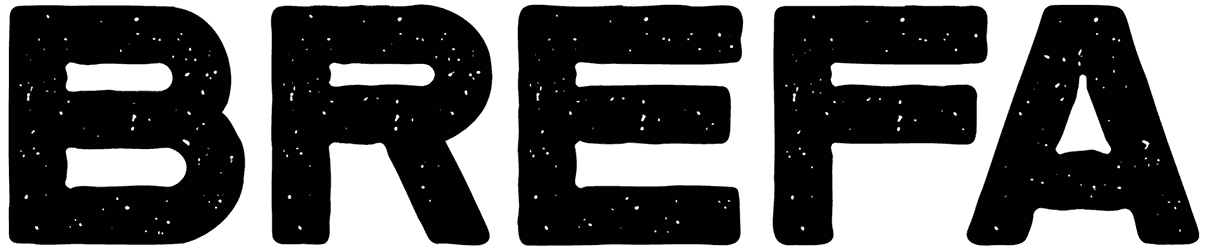
Brefa Font
Words that are simple and at the same time have a little pattern will be a clever choice for many designs. Brefa is an eroded adventure font with bold outward and rounded corners, which can be nice to display many designs. Even without lowercase, numbers, or punctuation, Brefa can be a suitable item to promote projects, for example, headlines, posters, wordmarks, and so on.
Designed by: Twinletter